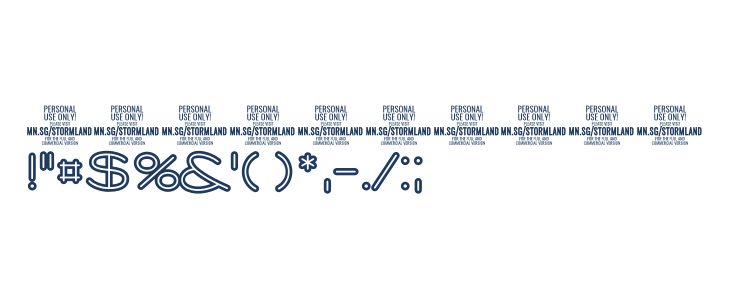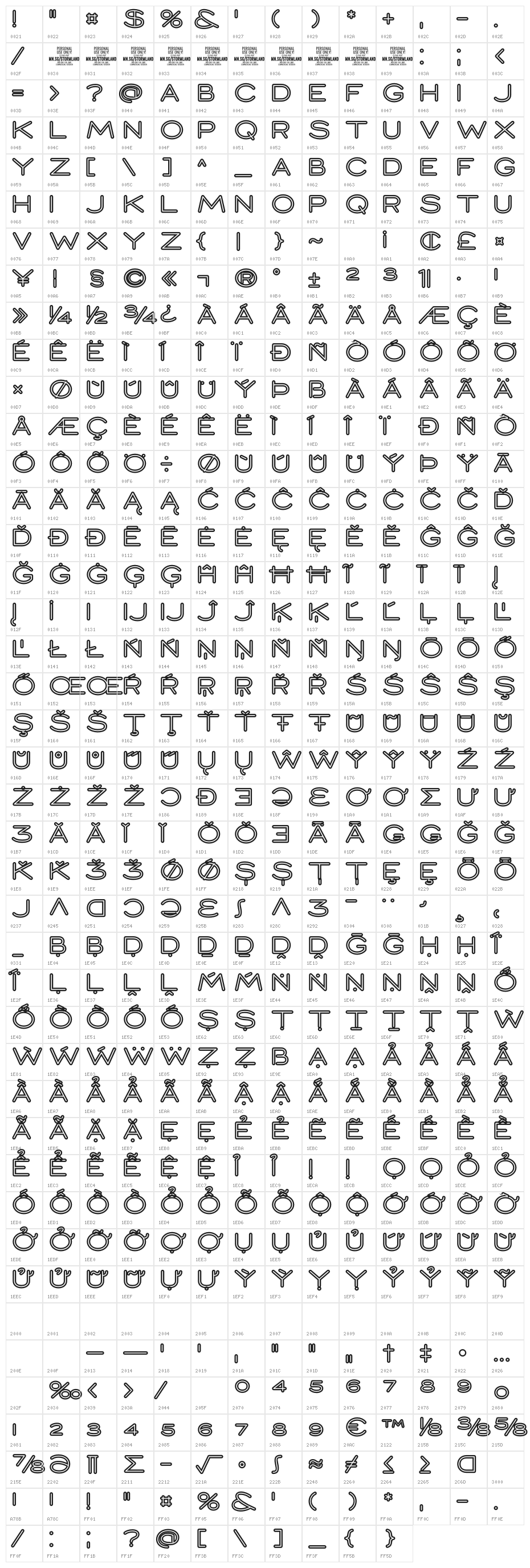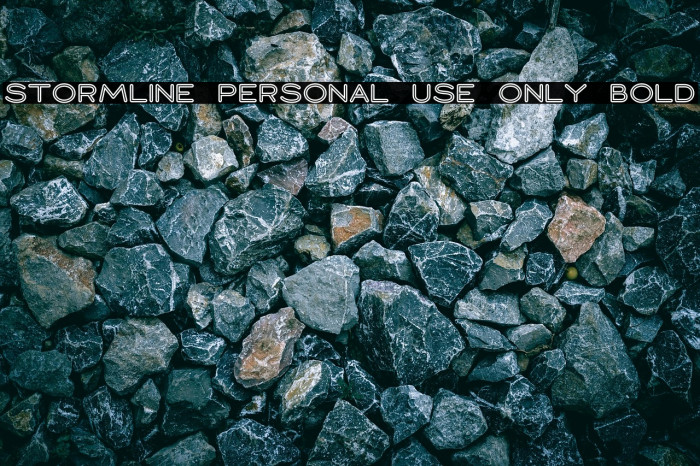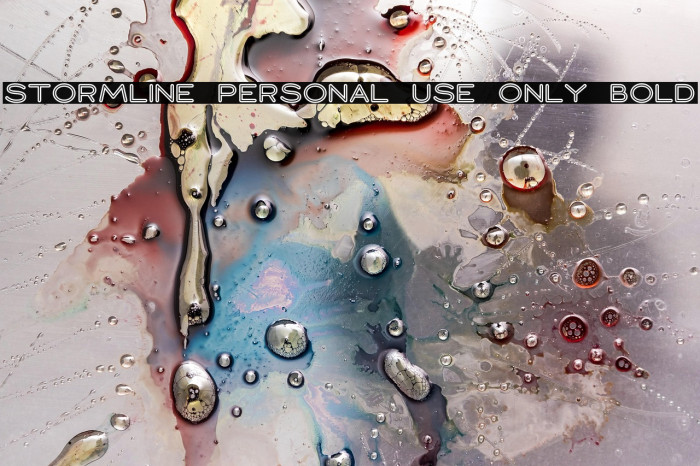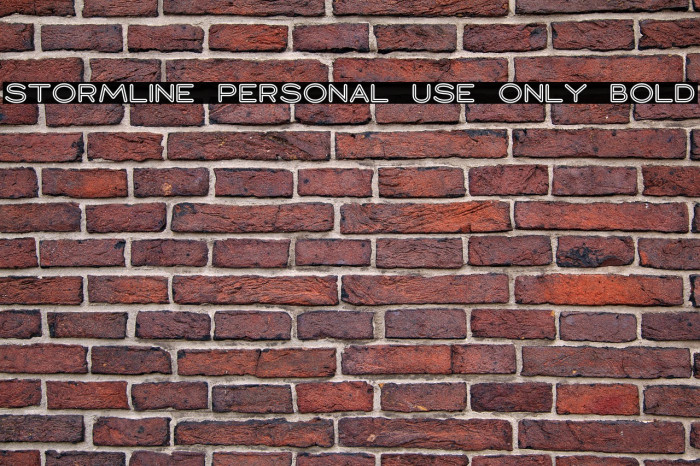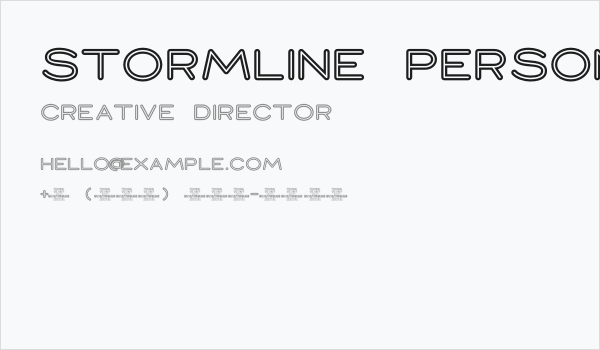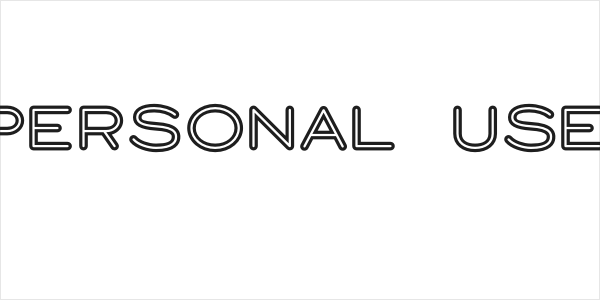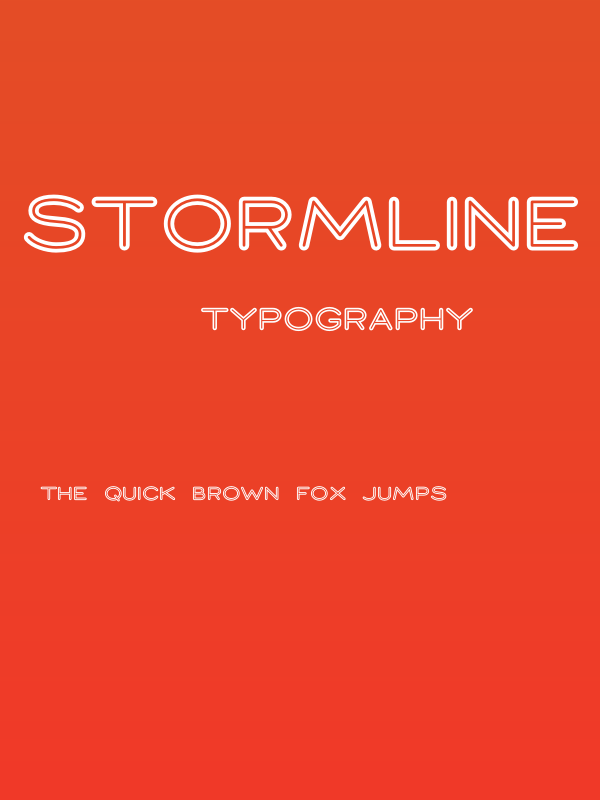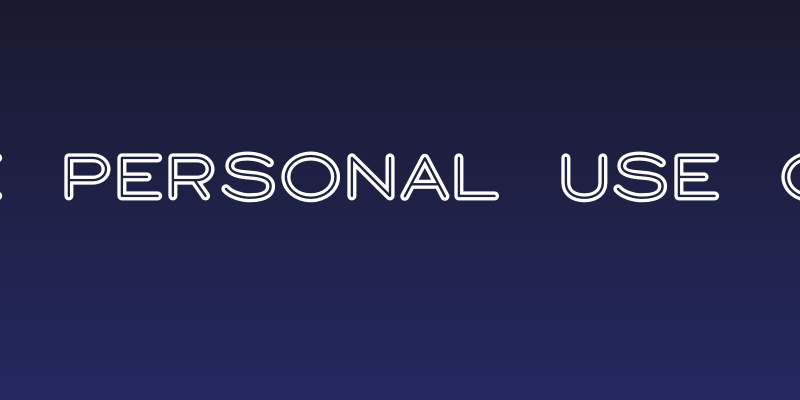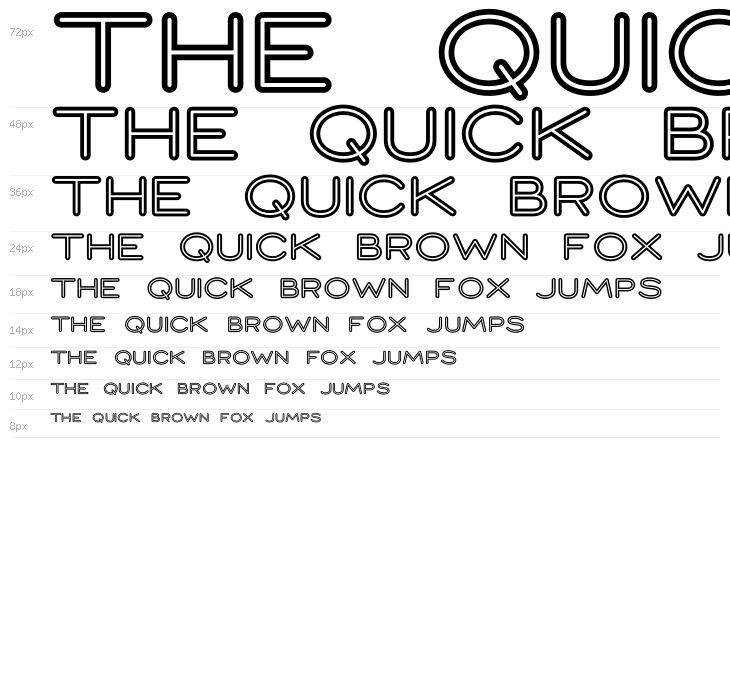
Stormline PERSONAL USE ONLY Bold Font
Stormline PERSONAL USE ONLY Bold Description
This font features a bold, outlined style with a modern and geometric appearance. The characters are uppercase and lowercase, with a consistent stroke width that gives a clean and structured look. The design is minimalistic yet striking, making it suitable for attention-grabbing headlines or logos. The spacing between characters is normal, ensuring readability while maintaining a compact appearance. The font includes a variety of special characters, enhancing its versatility for different design needs.